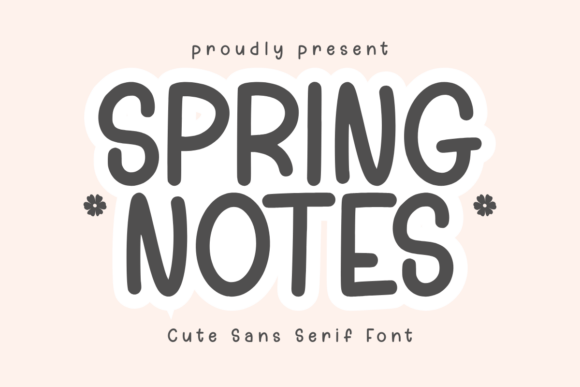
Introducing Spring Notes Font: The Perfect Addition to Your Creative Projects
Are you looking for a font that can add a touch of cuteness and creativity to your projects? Look no further than Spring Notes Font! This adorable sans serif font is perfect for a wide range of creative endeavors, from stickers and notes to planners, SVG quotes, t-shirts, wall art, and so much more.
What is Spring Notes Font?
Spring Notes Font is a modern sans serif font that exudes a playful and charming vibe. Its clean lines and simple shapes make it highly legible and versatile, allowing you to use it in various contexts. The font is designed to be eye-catching and engaging, making it perfect for projects that require a personal touch.
Features of Spring Notes Font
So, what makes Spring Notes Font so special? Here are some of its key features:
- Cute and playful design: Spring Notes Font has a unique and adorable design that is sure to capture attention.
- Sans serif: The font features clean lines and simple shapes, making it easy to read and highly legible.
- Versatile: Spring Notes Font can be used in a wide range of projects, from digital designs to print materials.
- High-quality: The font is designed to be high-quality and crisp, ensuring that it looks great in any context.
Uses of Spring Notes Font
Spring Notes Font is an incredibly versatile font that can be used in a variety of creative projects. Here are some ideas to get you started:
- Stickers: Add a personal touch to your stickers with Spring Notes Font.
- Notes: Use the font to create cute and colorful notes for your journal or planner.
- Planners: Create a custom planner with Spring Notes Font and make it truly unique.
- SVG quotes: Use the font to create eye-catching SVG quotes for your social media or blog.
- T-shirts: Design custom t-shirts with Spring Notes Font and make a statement.
- Wall art: Create beautiful wall art with Spring Notes Font and add a personal touch to your home decor.
- Cricut: Use Spring Notes Font with your Cricut machine to create custom vinyl designs.
- Craft: Add a personal touch to your craft projects with Spring Notes Font.
- Embroidery: Use the font to create custom embroidery designs for your clothes or home decor.
- Posters: Create eye-catching posters with Spring Notes Font and advertise your business or event.
- Cards: Design custom cards with Spring Notes Font and make them truly special.
Why Choose Spring Notes Font?
So, why should you choose Spring Notes Font for your creative projects? Here are some reasons:
- Unique design: Spring Notes Font has a unique and adorable design that will set your projects apart.
- High-quality: Spring Notes Font is designed to be high-quality and crisp, ensuring that it looks great in any context.
Tips for Using Spring Notes Font
Here are some tips for using Spring Notes Font in your creative projects:
- Experiment with colors: Spring Notes Font looks great in a variety of colors, so don’t be afraid to experiment.
- Mix and match: Combine Spring Notes Font with other fonts to create a unique and interesting design.
- Use it in combination with images: Spring Notes Font looks great in combination with images, so try using it to add text to your photos or illustrations.
- Make it bold: Use the bold version of Spring Notes Font to add emphasis to your text.
Spring Notes Font is a versatile and adorable font that is perfect for a wide range of creative projects. Its clean lines, simple shapes, and cute design make it highly legible and eye-catching. Whether you’re creating stickers, notes, planners, or any other type of project, Spring Notes Font is a great choice. So why not give it a try and see how it can enhance your creative endeavors?